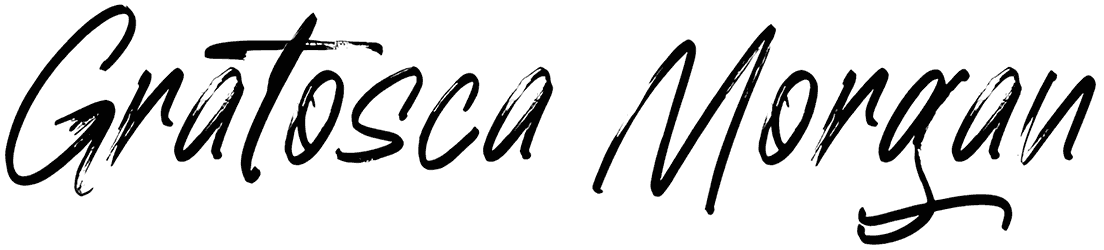
Gratosca Morgan Font
Gratosca Morgan is one of those awesome but few fonts that you find them rarely find and you don’t want to miss. A marker font like this one can bring such a unique personality to your content that you can’t find anywhere else.
A great font like this one comes with an extraordinary collection too, that except for the numbers you find both the uppercase and lowercase of the alphabet and punctuation marks it.